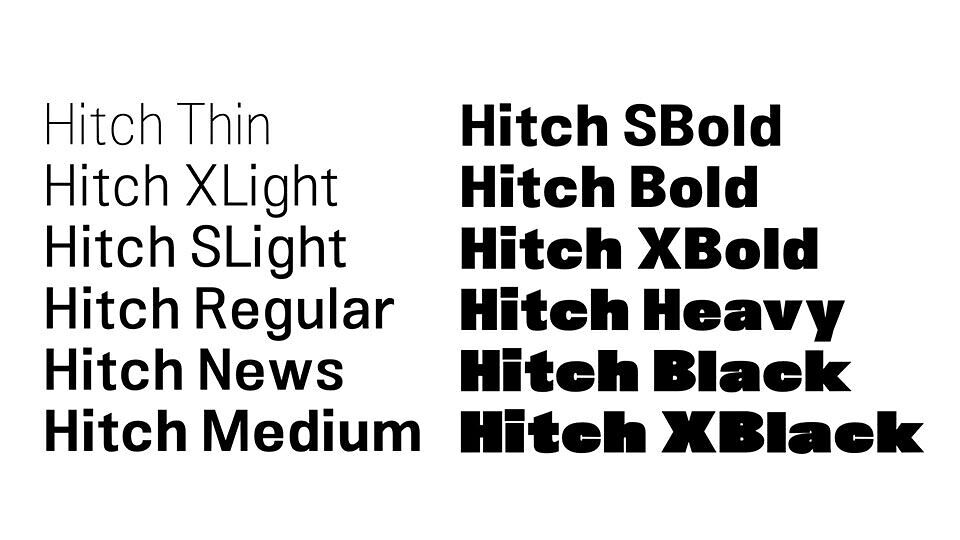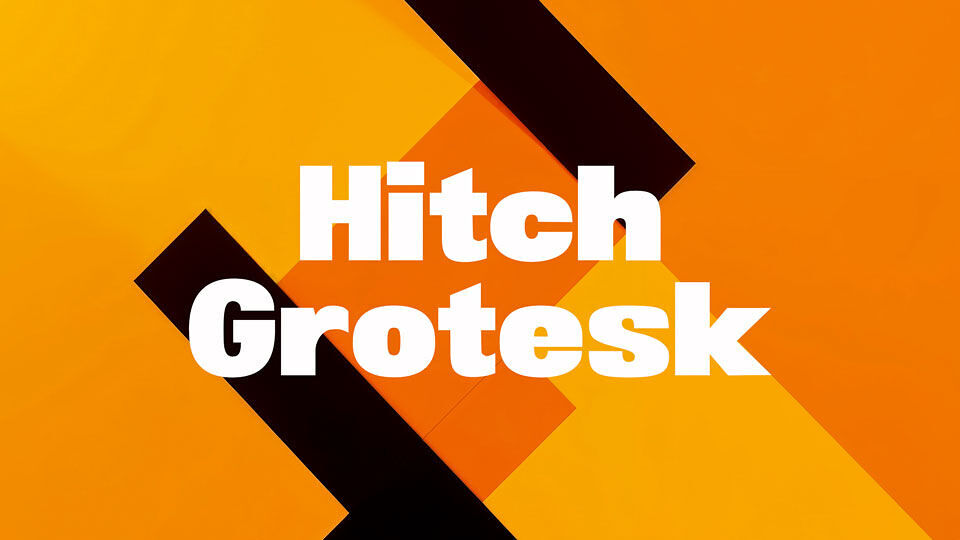
Hitch Grotesk is a dynamic neo-grotesque typeface blending clarity, modernity, and boldness. Spanning Thin to XBlack weights, it effortlessly meets diverse design demands with elegant light styles and commanding heavy options.
Its geometric, clean letterforms guarantee readability, enriched by subtle humanist flair for warmth and personality. Perfect for editorial, branding, UI/UX, and corporate identities, Hitch Grotesk shines in both digital and print contexts.